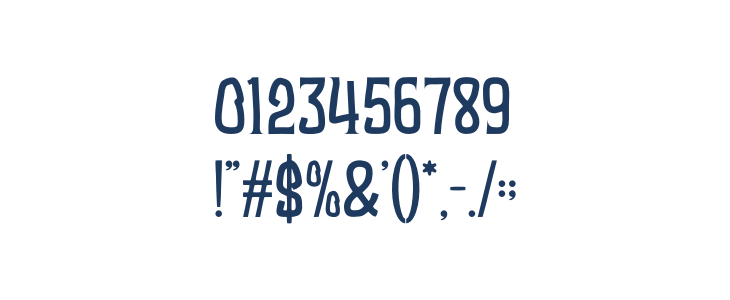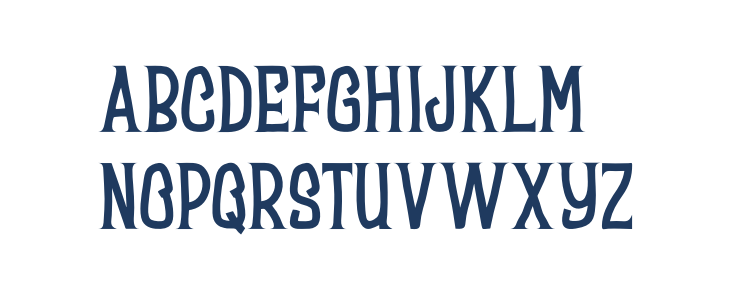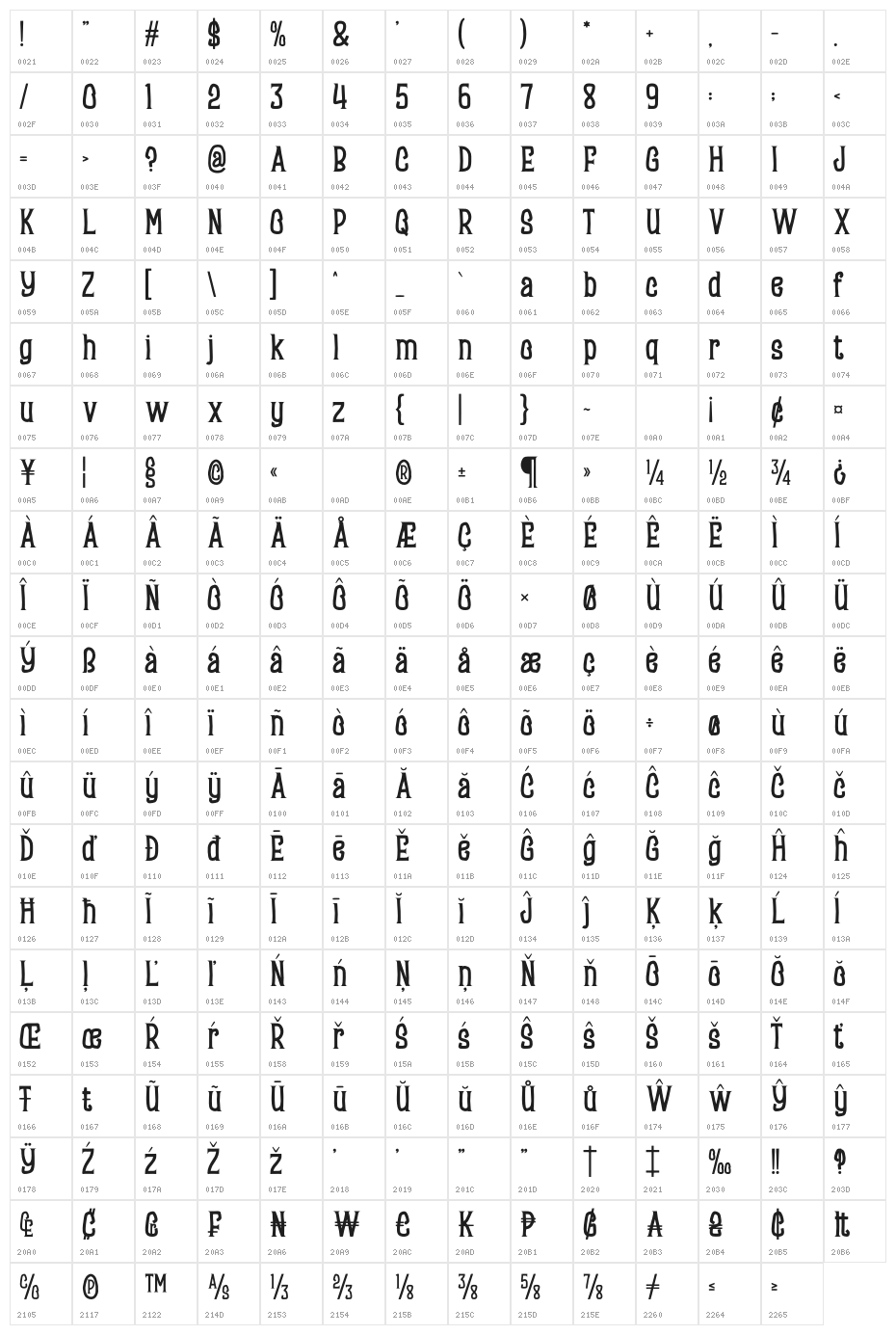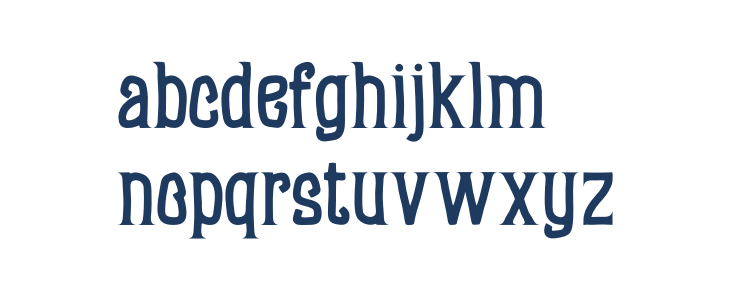
CRYPETIC Font
CRYPETIC Description
A quirky, playful display typeface with irregular, slightly wavy strokes and exaggerated vertical proportions. The characters have a hand-drawn, whimsical feel, with consistent stroke thickness and unique letterforms that stand out, especially in uppercase. The font maintains good legibility despite its decorative nature.
| Overall Style | Decorative, Whimsical, Playful |
| Use Case | Headlines, Posters, Logos, Invitations |
| Proposed Projects | Posters, childrenΓ’β¬β’s books, party invitations, branding for creative businesses, headlines. |